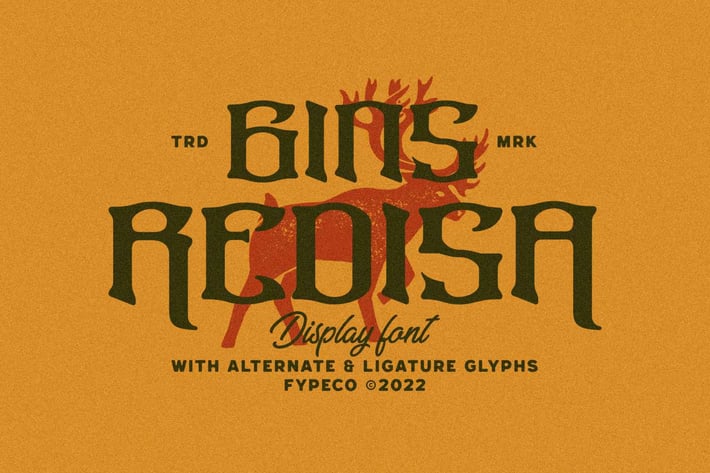
Gins Redisa - Medieval Display Font
Gins Redisa is a vintage display font with handmade style. This font gives a feel of a vintage, classic, old, and based on handmade. This handmade font is wonderful to use in logos, designs, labels, clothes or anything you want. Play with all the variations and discretional ligatures.
Font Features
-Uppercase
-Lowercase
-Alternatives
-Ligatures
-Numerals & Punctuation
-Multilingual Support